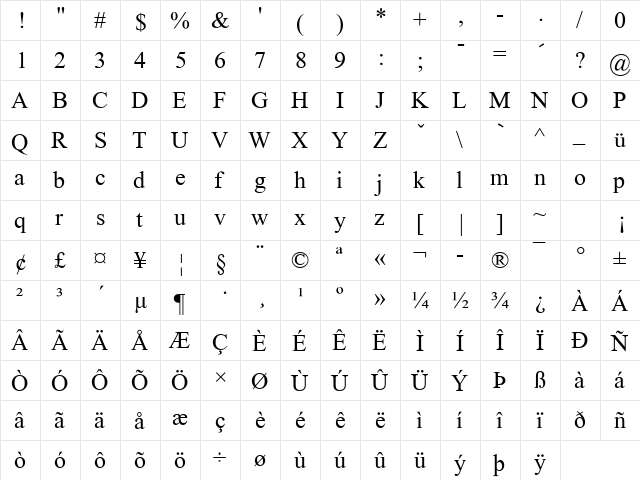
4-KeyTimesRoman Regular
Design Context for 4-KeyTimesRoman Typeface
4-KeyTimesRoman is a composed and adaptable typeface that performs quietly and consistently across a wide range of design contexts.